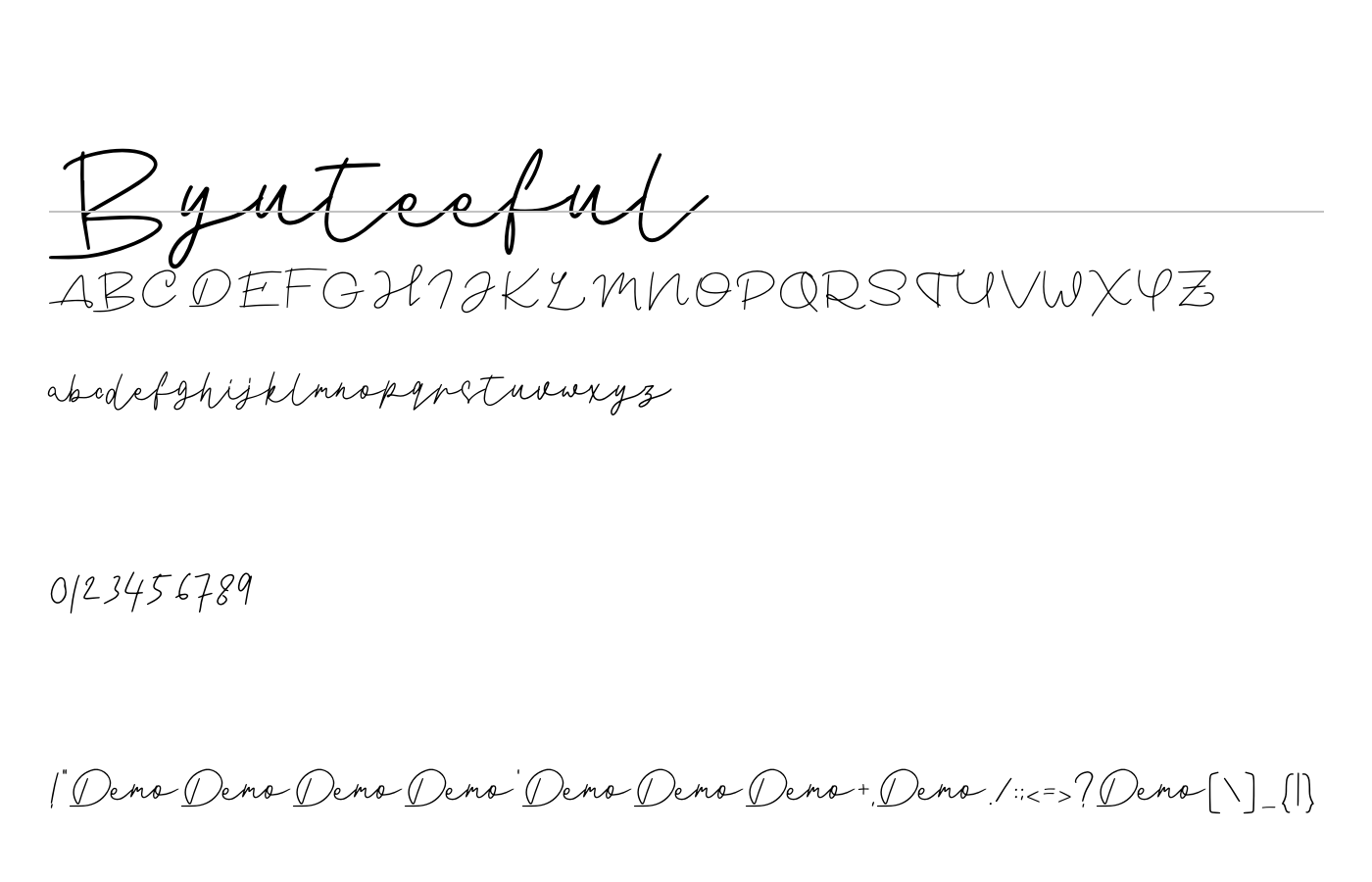
Byuteeful Font is a delicate, handwritten script font with a light weight and tall, elegant letterforms that create a personal and artistic feel. Its thin, flowing strokes and unique character shapes make it perfect for adding a stylish, intimate touch to branding, invitations, and editorial designs where a soft and creative vibe is desired. This font works best in headlines or decorative text, lending a charming and sophisticated personality to any project.
Byuteeful Font
About Byuteeful Font